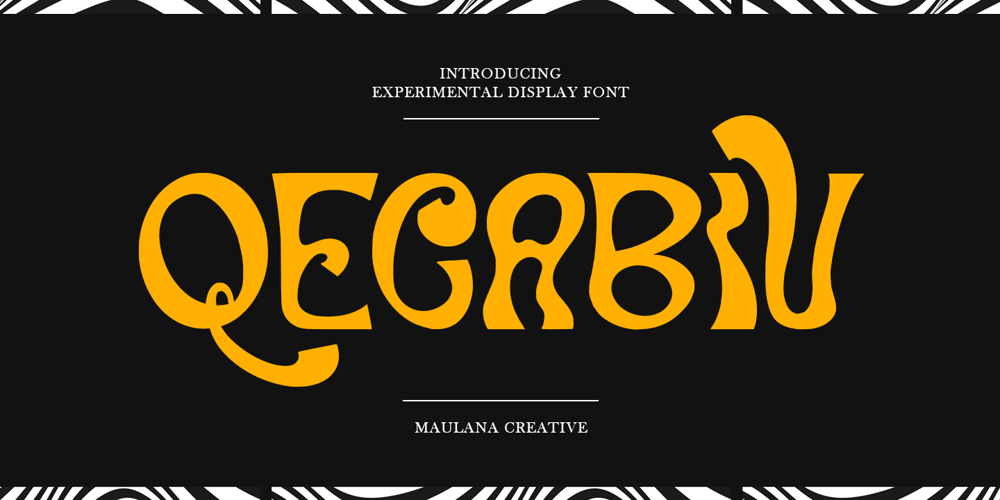
MC Qecabiv Font Family was designed by Gilang Maulana and published by Maulana Creative. MC Qecabiv contains 1 styles and family package options. Qecabiv experimental display font. Bold stroke, fun character with a bit of ligatures and alternates. To give you an extra creative work. Qecabiv experimental display font support multilingual more than 100+ language. This font is good for logo design, Social media, Movie Titles, Books Titles, a short text even a long text letter and good for your secondary text font with script or serif. Make a stunning work with Qecabiv experimental display font.Cheers,Maulana Creative